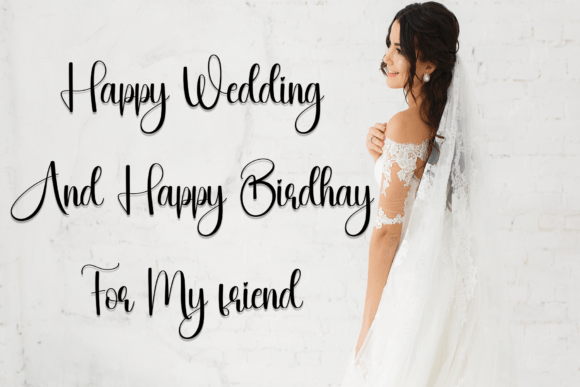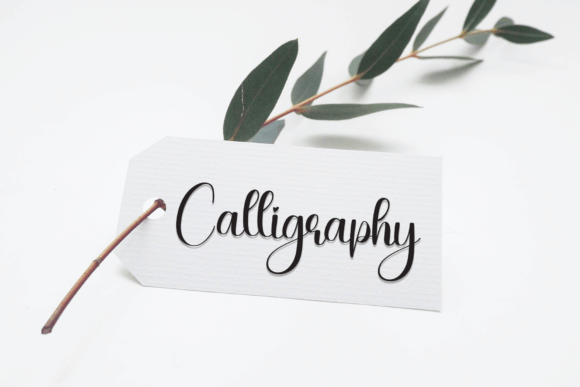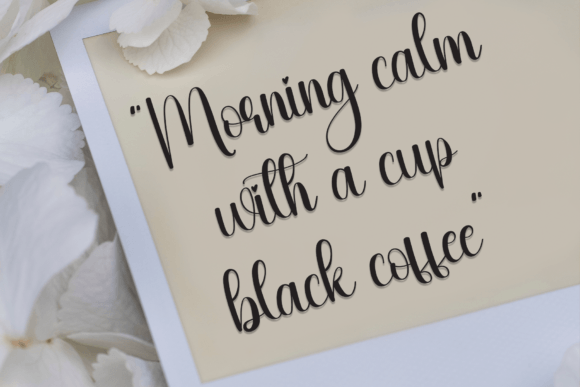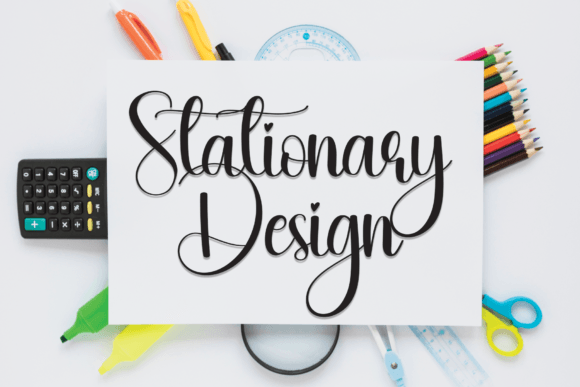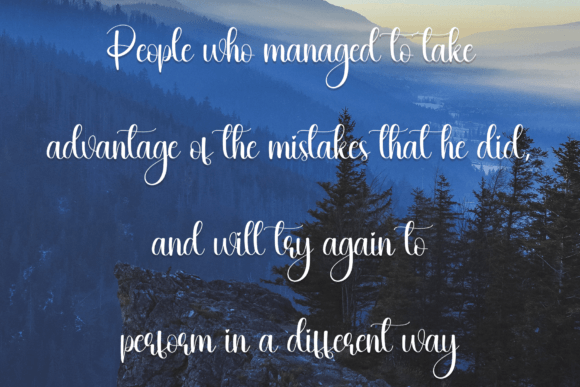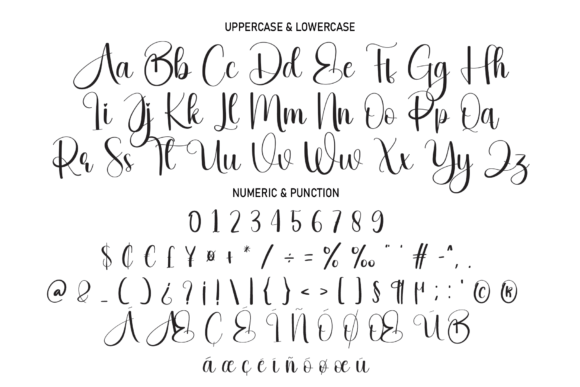
Earring Font: The Perfect Handwritten Typography for Your Creative Projects
Are you a designer or crafter looking for a beautiful and romantic handwritten font to elevate your creative projects? Look no further than Earring Font! This stunning font is perfect for adding a touch of elegance and sophistication to your designs. In this article, we’ll explore the features and benefits of Earring Font, and show you how to use it to take your projects to the next level.
What is Earring Font?
Earring Font is a beautifully flowing handwritten font that is perfect for a wide range of creative projects. Its latest style letters are designed to be romantic and elegant, making it ideal for projects that require a touch of sophistication. Whether you’re working on a wedding invitation, social media post, logo, or product packaging, Earring Font is the perfect choice.
Key Features of Earring Font
- Romantic and elegant design: Earring Font features beautiful, flowing letters that are perfect for creating romantic and elegant designs.
- Handwritten typography: This font is designed to mimic handwritten typography, giving your projects a personal and unique touch.
- Versatile: Earring Font is perfect for a wide range of creative projects, including wall displays, wedding invitations, social media posts, logos, advertisements, product packaging, and more.
Benefits of Using Earring Font
So why choose Earring Font for your creative projects? Here are just a few benefits of using this stunning font:
- Adds a touch of elegance: Earring Font adds a touch of elegance and sophistication to your designs, making them perfect for special occasions and high-end projects.
- Creates a personal touch: The handwritten typography of Earring Font gives your projects a personal and unique touch, making them stand out from the crowd.
- Versatile: Earring Font is perfect for a wide range of creative projects, making it a great addition to your font library.
- Easy to read: The flowing letters of Earring Font are easy to read, making it perfect for projects that require a clear and legible font.
Using Earring Font in Your Creative Projects
So how can you use Earring Font in your creative projects? Here are a few ideas to get you started:
- Wedding invitations: Earring Font is perfect for wedding invitations, adding a touch of romance and elegance to your designs.
- Social media posts: Use Earring Font to create beautiful and eye-catching social media posts that will stand out from the crowd.
- Logos and branding: Earring Font is perfect for creating logos and branding materials that require a touch of elegance and sophistication.
- Product packaging: Use Earring Font to add a touch of elegance to your product packaging, making your products stand out on store shelves.
- Invitations and stationery: Earring Font is perfect for creating beautiful invitations and stationery that will make a lasting impression.
Tips and Tricks for Getting the Most Out of Earring Font
Here are a few tips and tricks for getting the most out of Earring Font:
- Experiment with different colors: Earring Font looks great in a wide range of colors, so don’t be afraid to experiment and find the perfect color for your project.
- Use it with other fonts: Earring Font pairs well with other fonts, so try using it with a bold font for a striking contrast.
- Pay attention to spacing: Make sure to pay attention to the spacing between letters and words to ensure that your text is easy to read.
Earring Font is a beautiful and romantic handwritten font that is perfect for a wide range of creative projects. Its elegant and flowing letters make it ideal for adding a touch of sophistication to your designs. Whether you’re a designer or crafter, Earring Font is a great addition to your font library. With its versatility, ease of use, and beautiful design, Earring Font is sure to become a favorite font for many creative professionals.